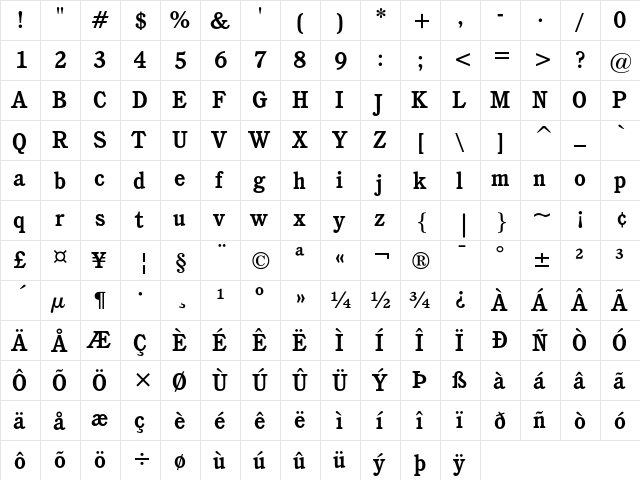
ITC Cushing Bold
Design Context for ITC Cushing Typeface
ITC Cushing takes a measured approach to typography — its balanced proportions and neutral character make it a reliable workhorse for both digital and print work. Its bold stroke weight gives it real presence on the page.